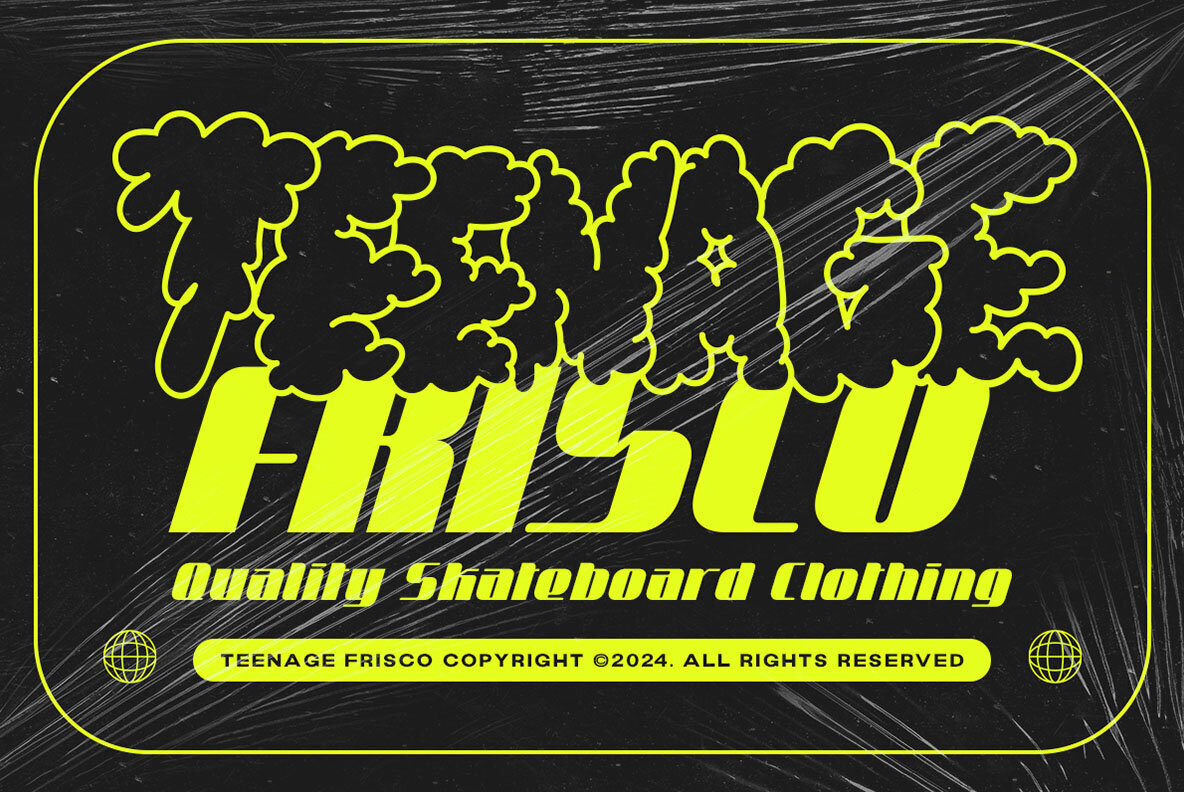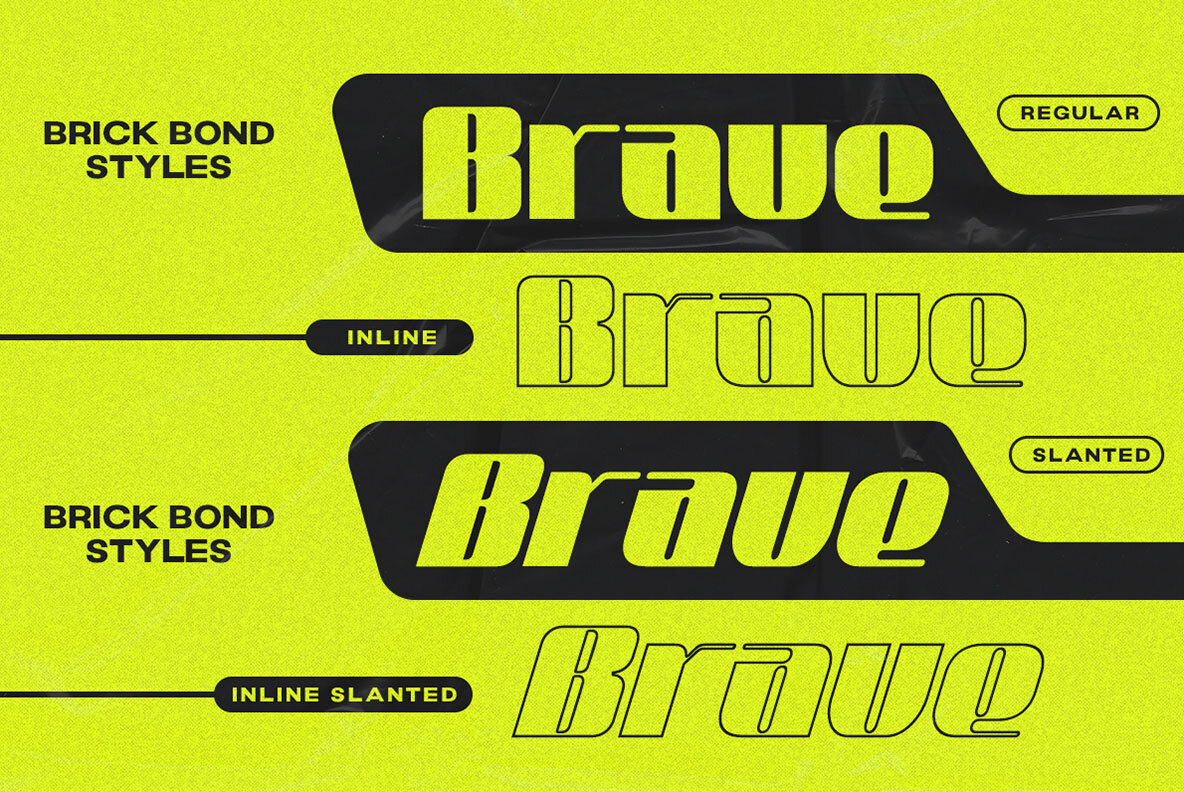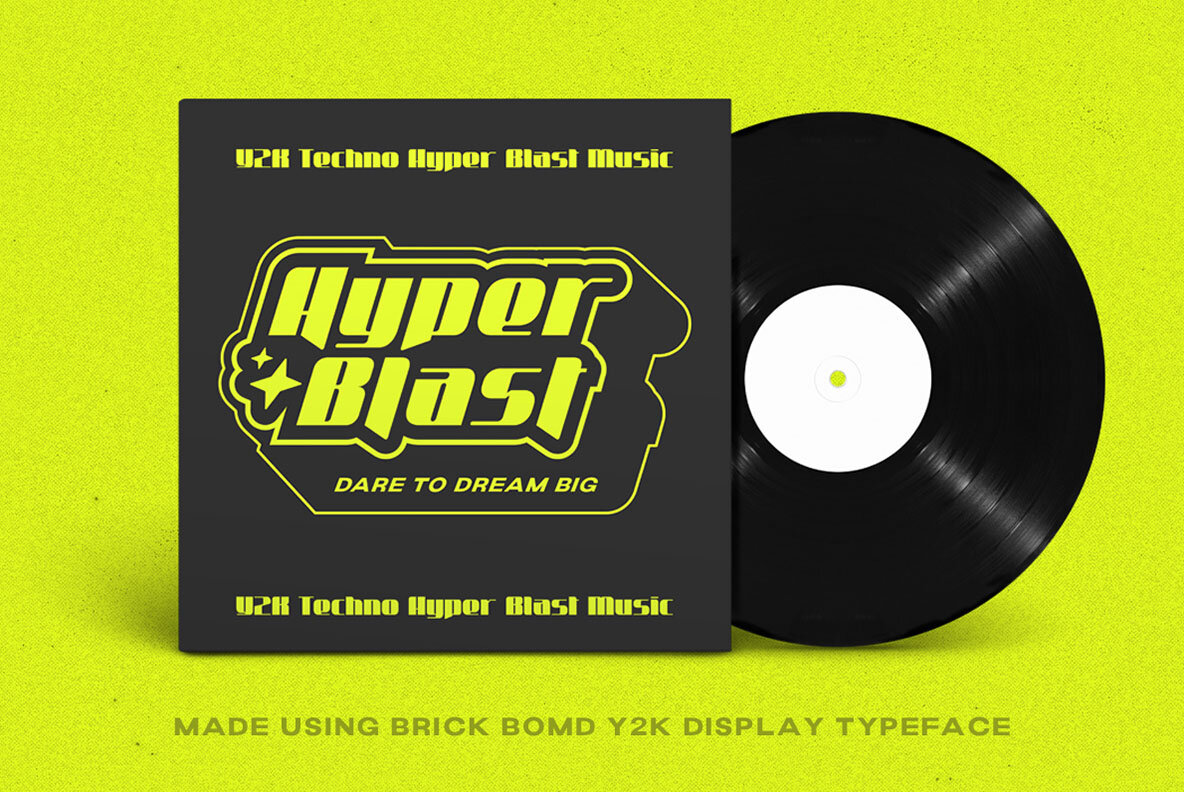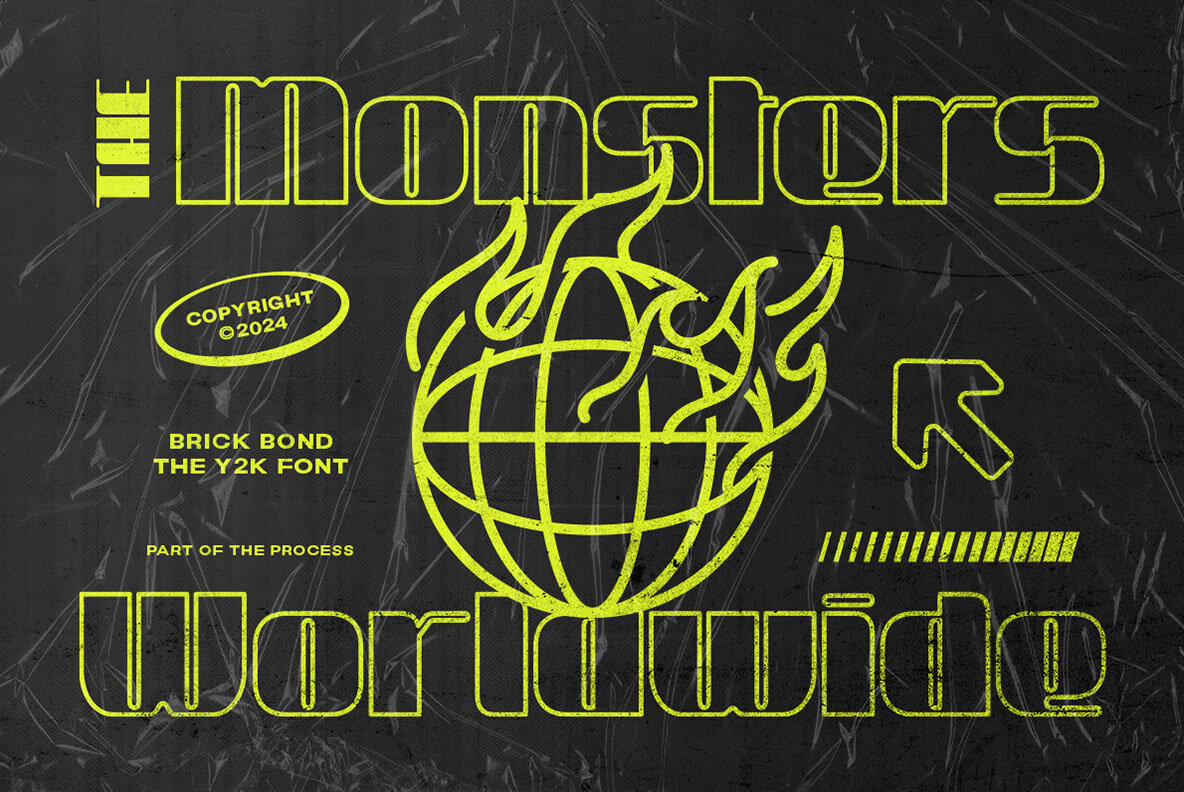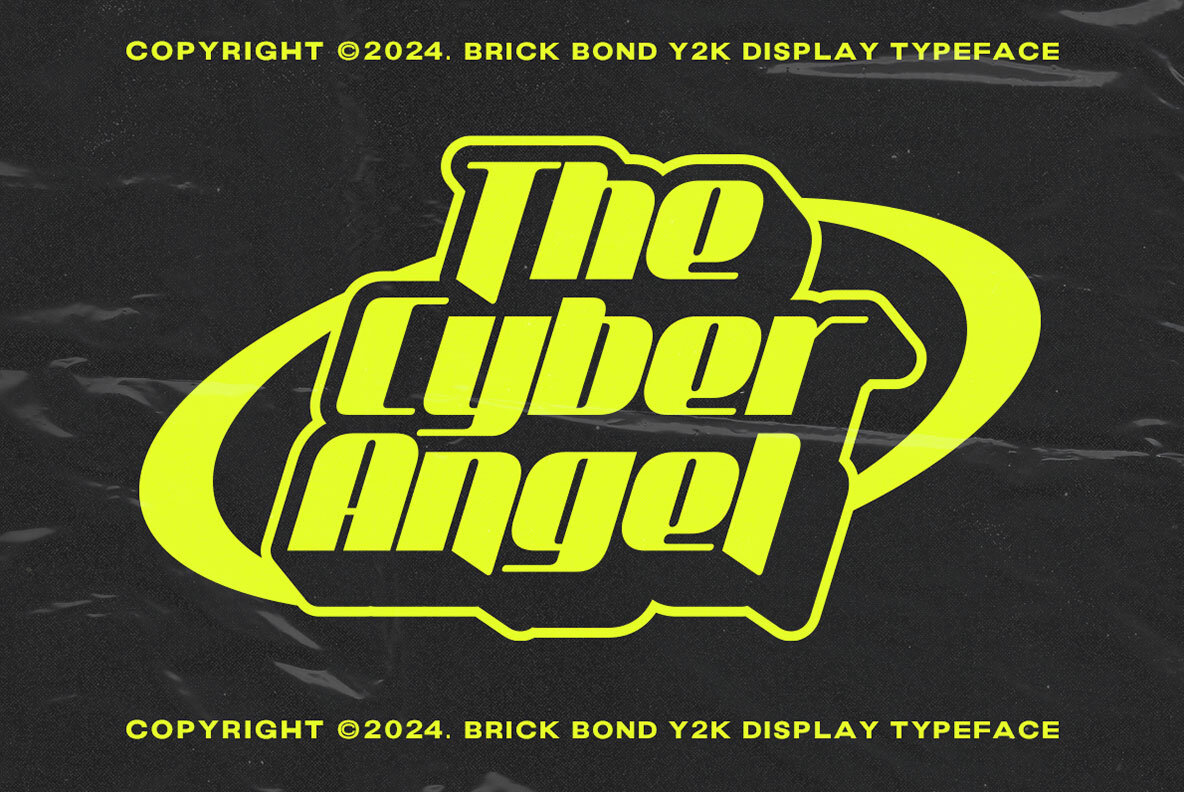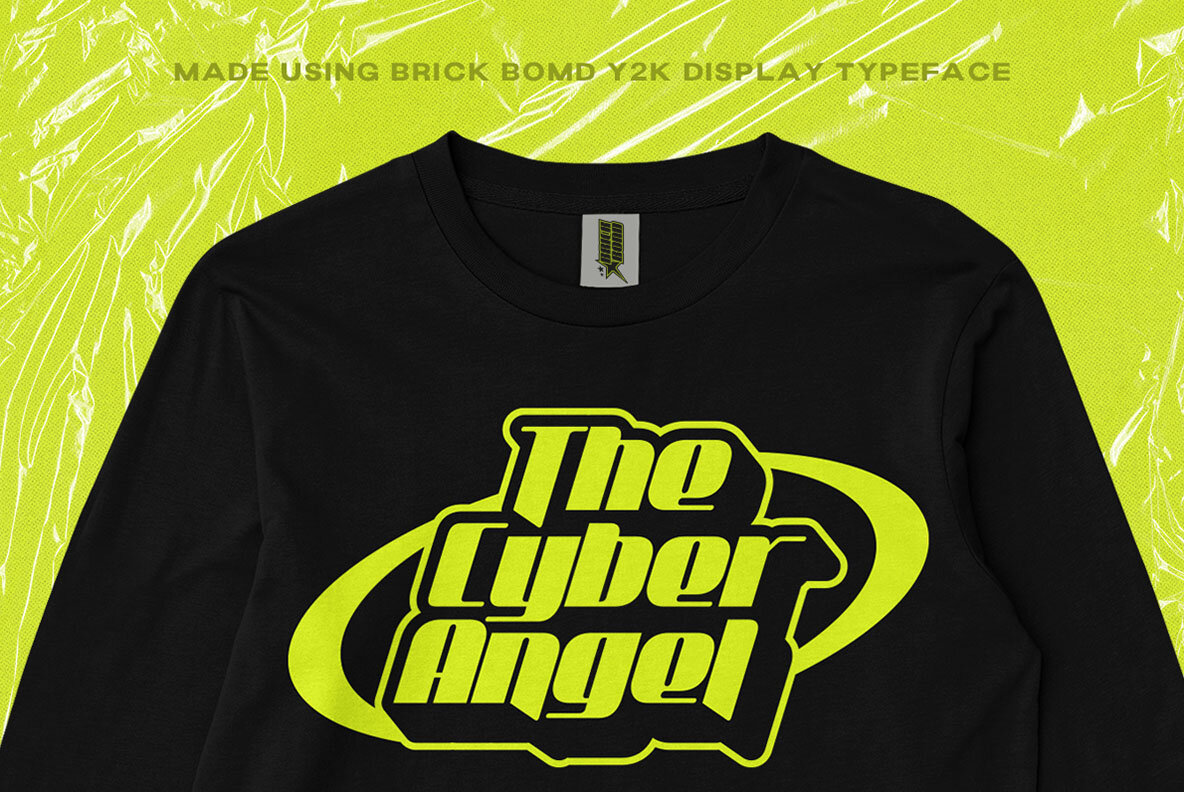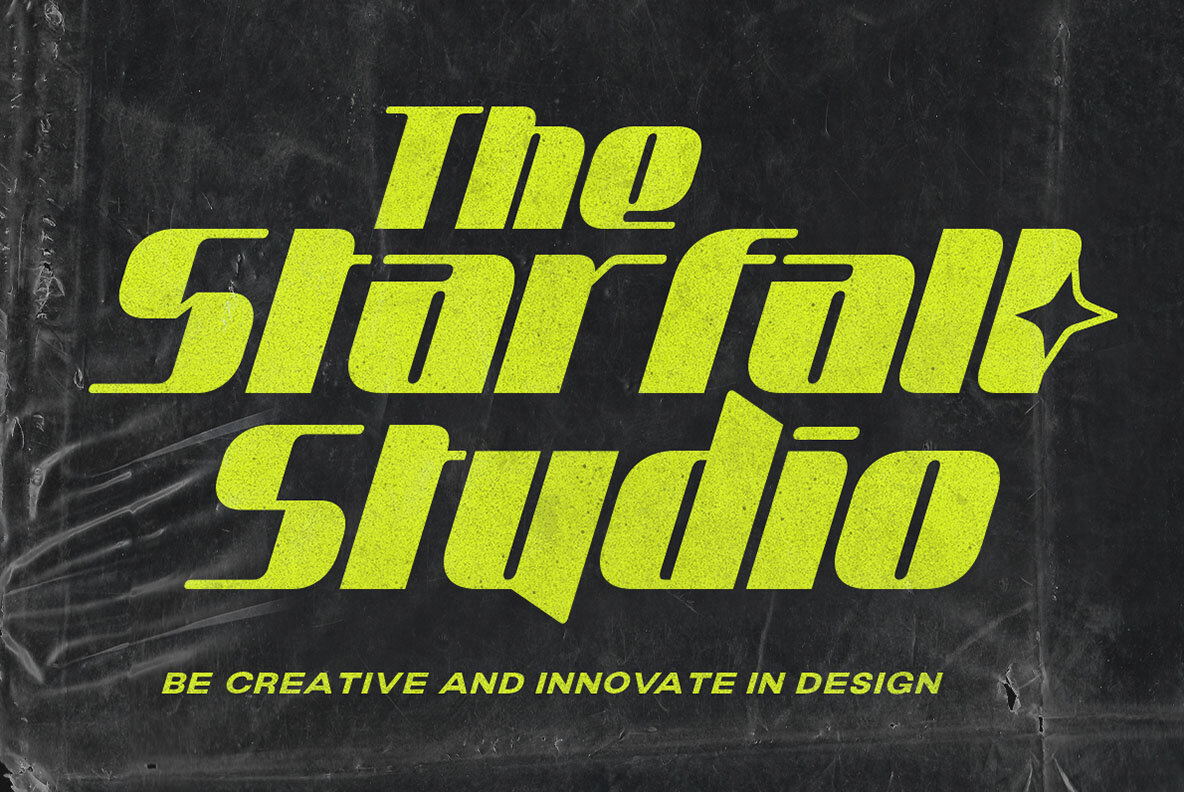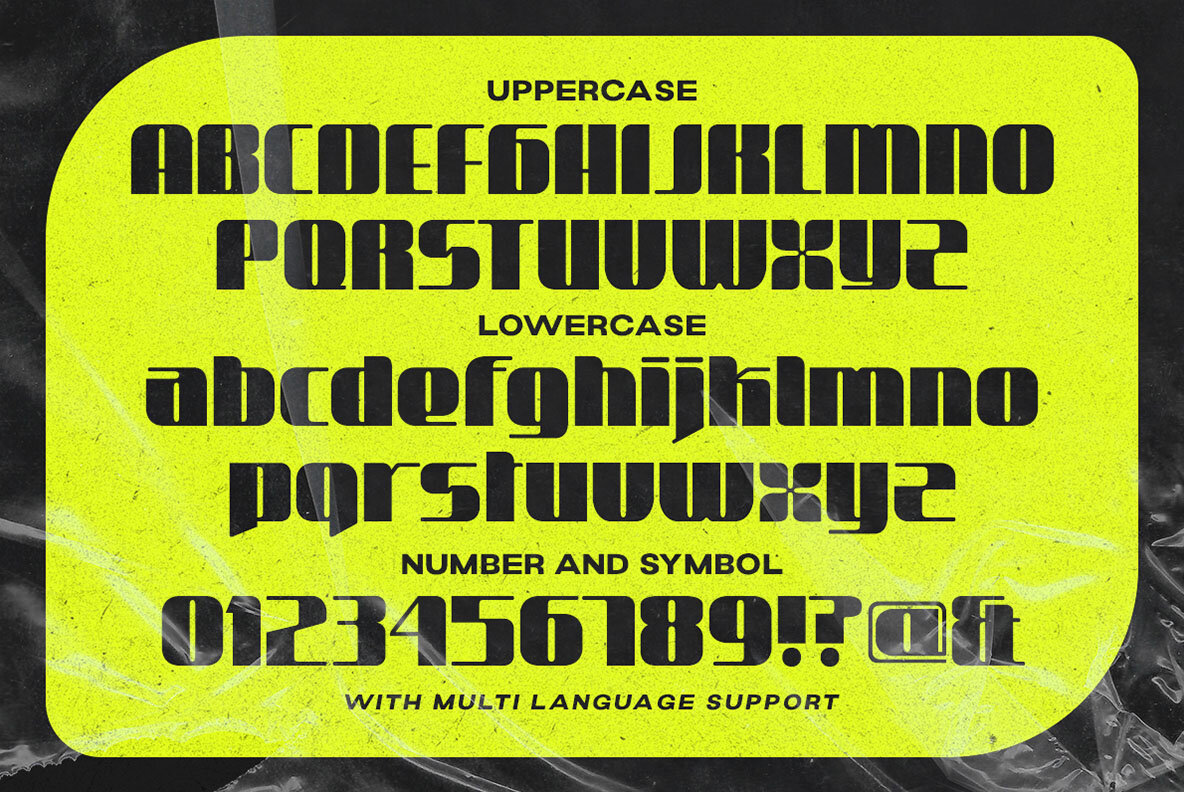
Brick Bond Font
Introducing Brick Bond, a stunning Y2K display font with a futuristic touch designed by Hendry Juanda. Perfect for titles, headlines, and key elements, this font comes in both outline and slant versions, ensuring your designs stand out.
- Uppercase & lowercase characters
- Numbers and punctuation
- Alternates & ligatures
- Multilingual support